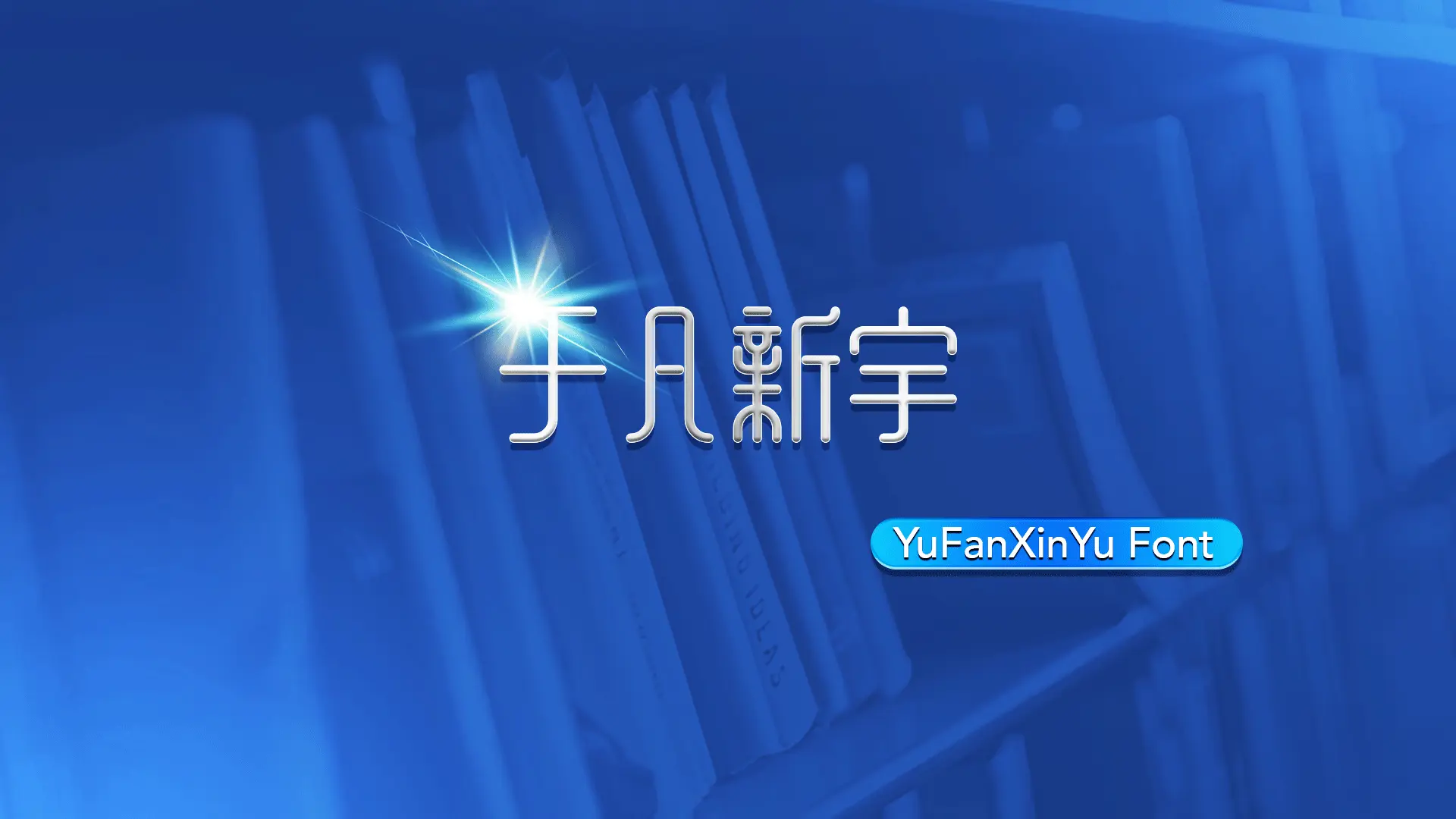
The YuFanXinYu font family may be ideal for you if you enjoy working on an artistic design project. The lively, expressive look of this typeface, which was created by chilingg (YuFan), makes it ideal for Text body (It's designed to be readable, making it suitable for the main body text of books, academic journals, or magazines, especially those focusing on literature, history, or culture.), Titles and headings (Its elegant nature also makes it effective for titles, headings, and chapter beginnings), Branding and Logos, Newspapers and News Sites and other light-hearted visual projects.
Bold, Light, Medium, Regular are the four primary font styles of the YuFanXinYu font family. You may build dynamic, visually appealing text layouts with the distinct flair that each style offers. With crisp, readable lines and a relaxed tone.